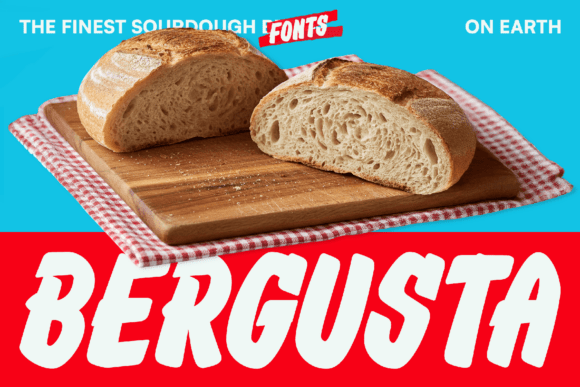
Bringing Back the Soul of 70s and 80s Americana: A Deep Dive into Bergusta Font
I’ll never forget the design project that led me to discover Bergusta Font. I was working on a branding project for a new diner, and I was struggling to find the perfect font that captured the nostalgic feel of a bygone era. The client wanted something that would transport their customers back to the good old days of American main streets, complete with sun-drenched signage and a dash of retro charm. That’s when I stumbled upon Bergusta, and it was love at first sight! 💕
What Makes Bergusta So Special?
Bergusta is more than just a font – it’s a tribute to the craftsmanship of a bygone era. Inspired by the iconic signage of American main streets, Bergusta captures the thick, buttery strokes of a master sign painter’s brush. With its heavyweight presence and dynamic forward lean, Bergusta doesn’t just sit on a page; it moves. It’s designed with a natural, organic flow that mimics the slight imperfections and soulful curves of a hand-lettered masterpiece.
Why Bergusta is a “Must-Have” for Food Branding
Bergusta is perfect for food branding, and here’s why:
• ✅ Deliciously Bold: Perfect for high-impact headlines that need to grab attention across a crowded room or a busy social media feed.
• ✅ Retro Authenticity: Precisely engineered to evoke the nostalgia of 1970s and 80s advertising without feeling “dated.”
• ✅ Built for Appetit: Designed specifically for food branding, Bergusta is sure to make your menu items look appetizing and irresistible.
What I Love About Bergusta ✨
• ✨ Unique and Authentic Look: Bergusta’s hand-painted feel is truly one-of-a-kind and will make your designs stand out.
• ✨ Ease of Use: Despite its complex look, Bergusta is surprisingly easy to use, even for those who are new to design.
• ✨ OpenType Features: Bergusta comes with a range of OpenType features, including stylistic alternates and glyphs, that will take your designs to the next level.
• ⚠️ Limited Use Cases: While Bergusta is perfect for food branding, it may not be the best fit for other types of projects, such as corporate or tech branding.
• ⚠️ Some Kerning Issues: As with any font, there may be some kerning issues, especially when using Bergusta at smaller sizes.
• ⚠️ Not Suitable for Body Text: Bergusta is a display font, and it’s not recommended for use in body text due to its bold and attention-grabbing nature.
Bergusta was designed by a team of designers who are passionate about bringing back the soul of 70s and 80s Americana. Inspired by the iconic signage of American main streets, they set out to create a font that would capture the essence of a bygone era. With its bold, hand-painted feel and dynamic forward lean, Bergusta is sure to transport your customers back to the good old days.
Q: What is Bergusta font?
A: Bergusta is a bold, hand-painted font inspired by the iconic signage of American main streets.
Q: What is Bergusta best used for?
A: Bergusta is perfect for food branding, including menus, logos, and advertising.
Q: Is Bergusta easy to use?
A: Yes, Bergusta is surprisingly easy to use, even for those who are new to design.